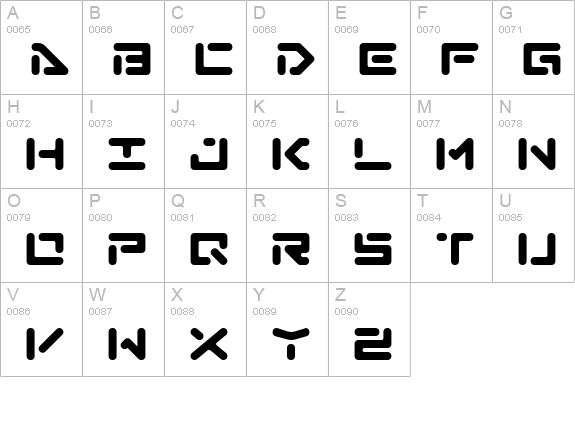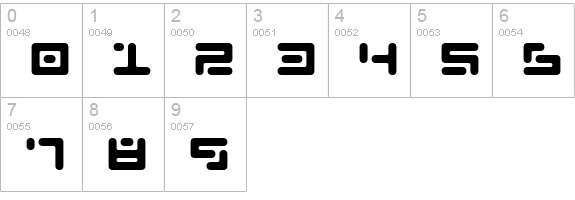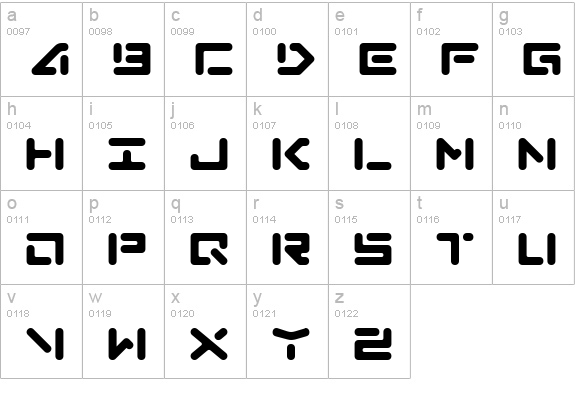
Abduction Font Details
Introducing Abduction font - a modern and sleek typeface that exudes sophistication and elegance. With its unique design and clean lines, Abduction is perfect for a wide range of design projects, from branding to editorial design. What sets Abduction font apart is not only its striking appearance but also the fact that it is available for free download at FontsMarket.com. This means that you can easily access and use this stylish font in your projects without any cost. Whether you're looking to add a touch of class to your website, create eye-catching marketing materials, or design stunning invitations, Abduction font is the perfect choice. Download it for free today and elevate your design projects with this versatile and stylish typeface.